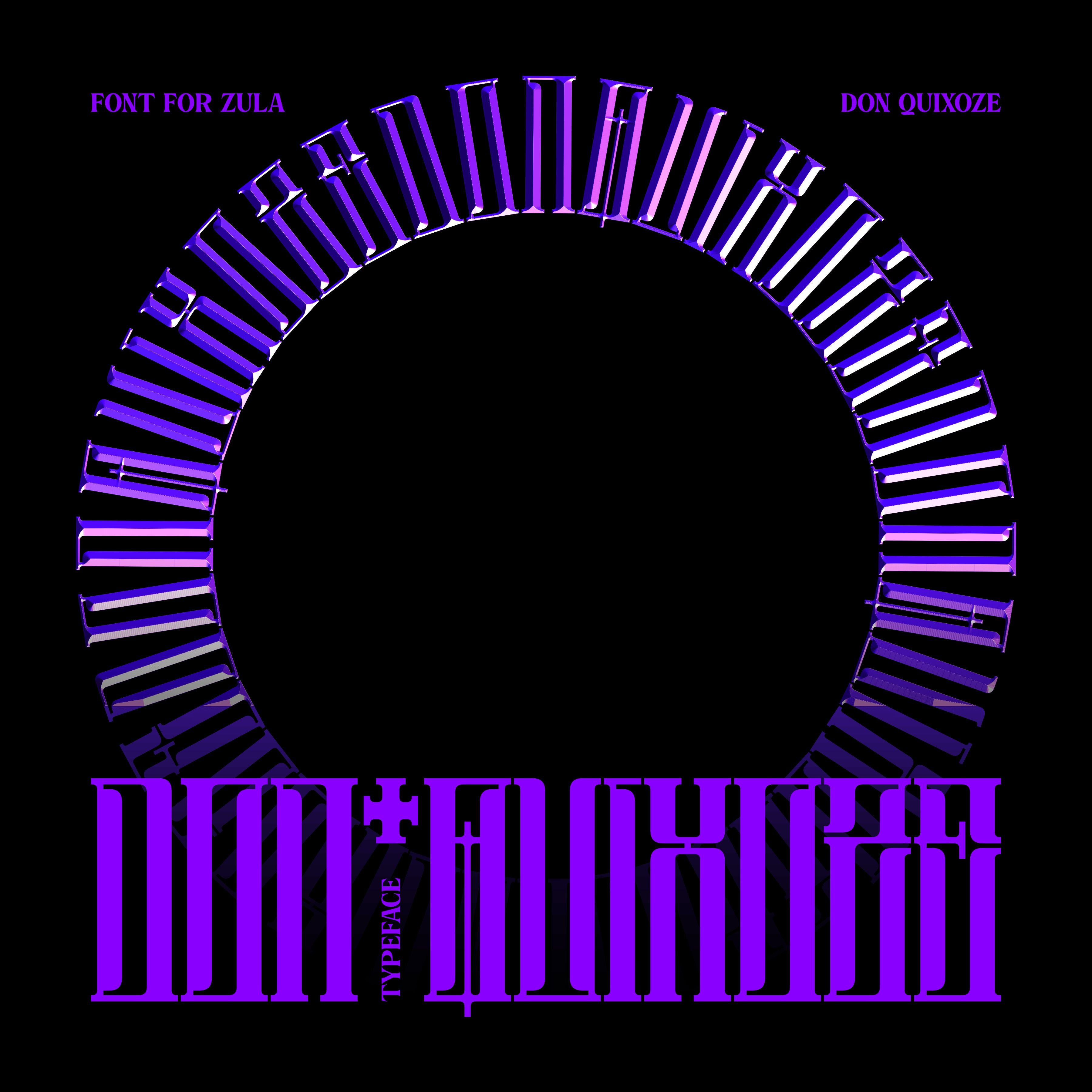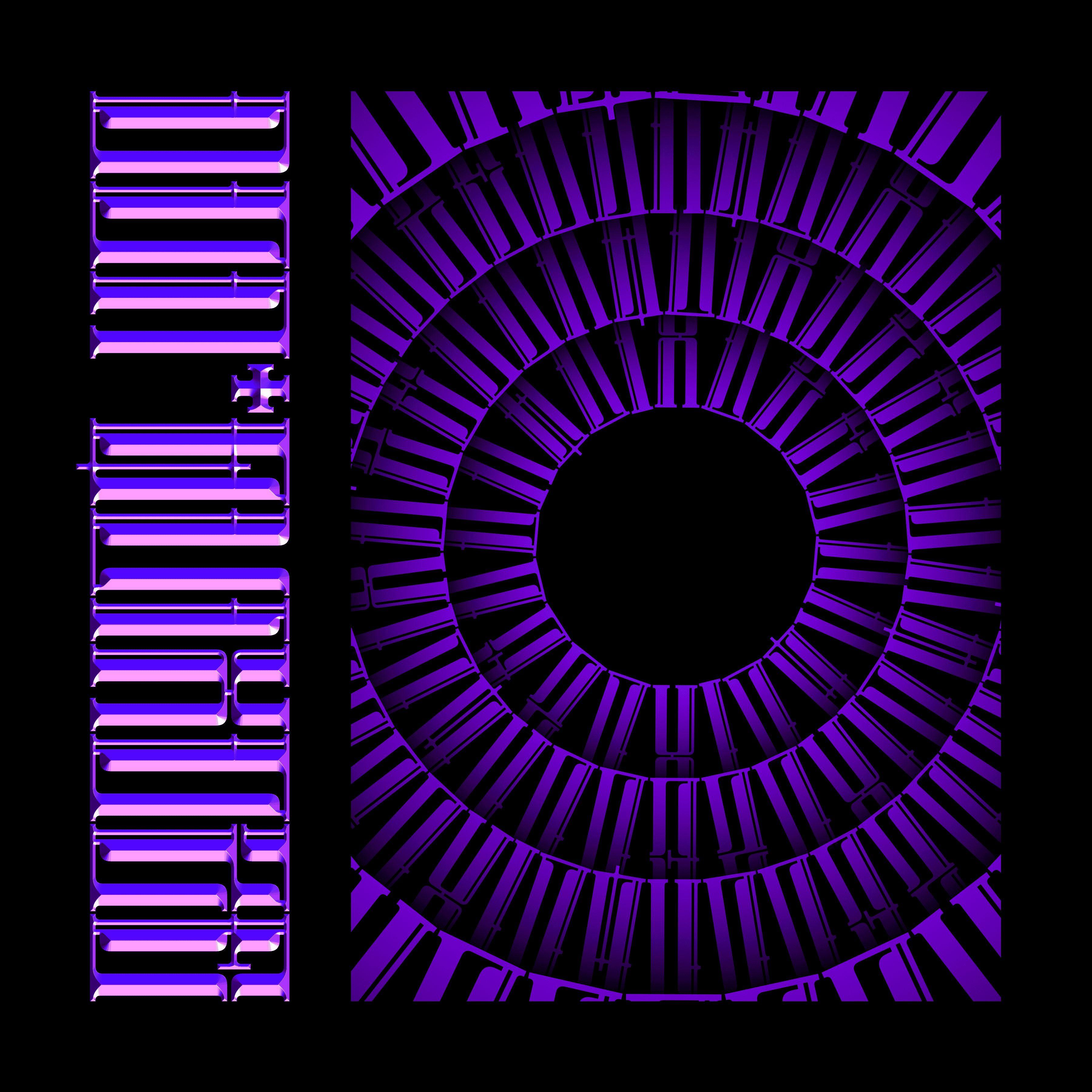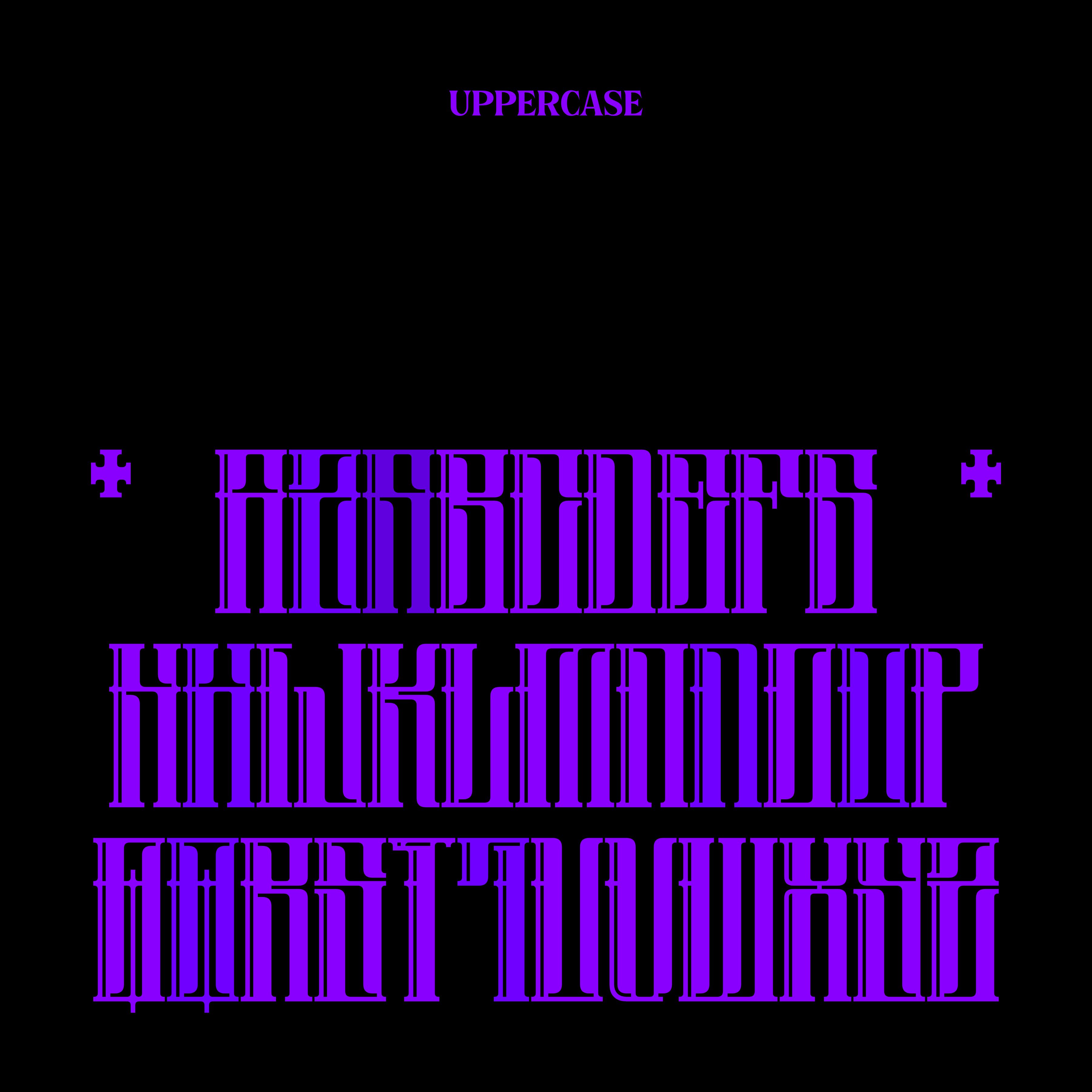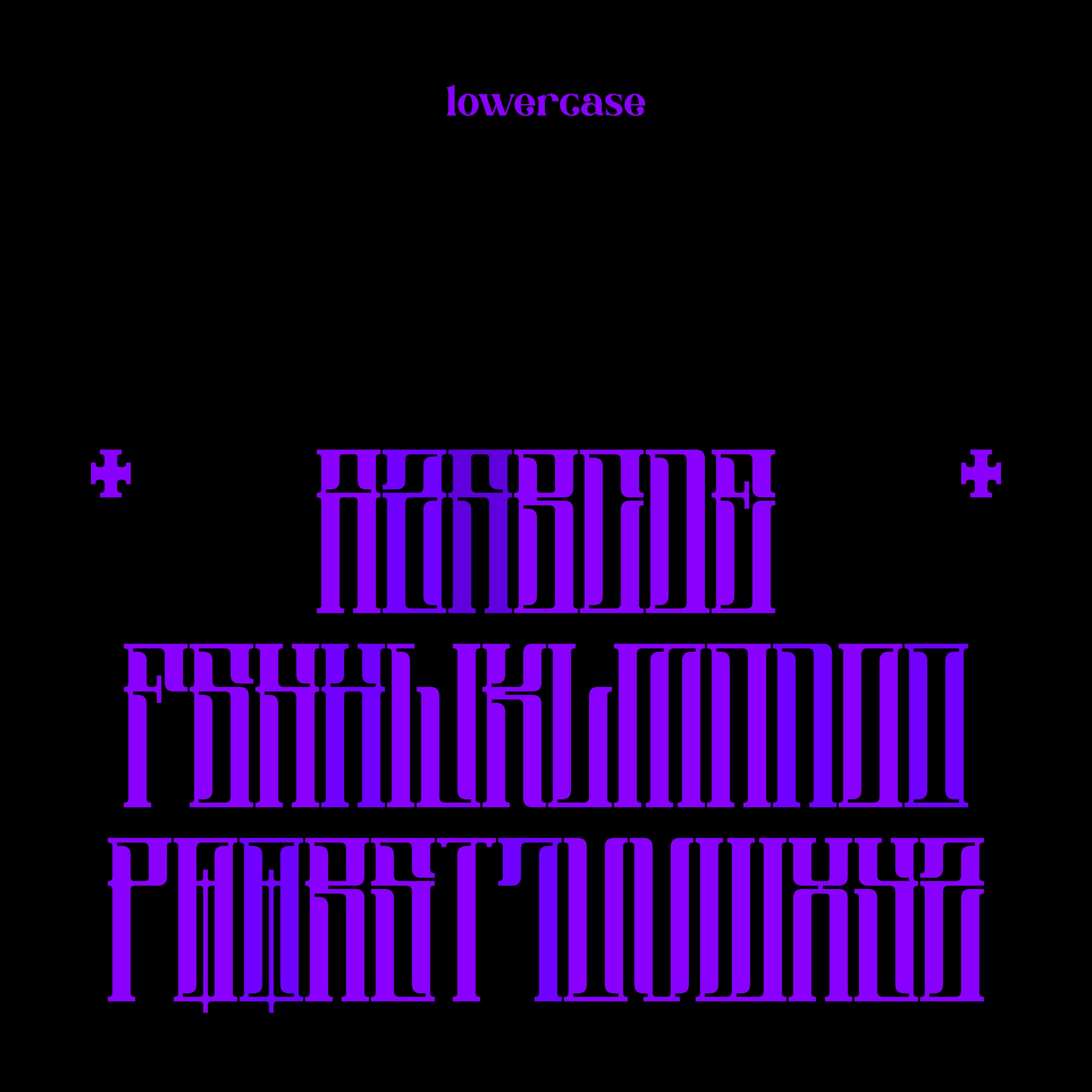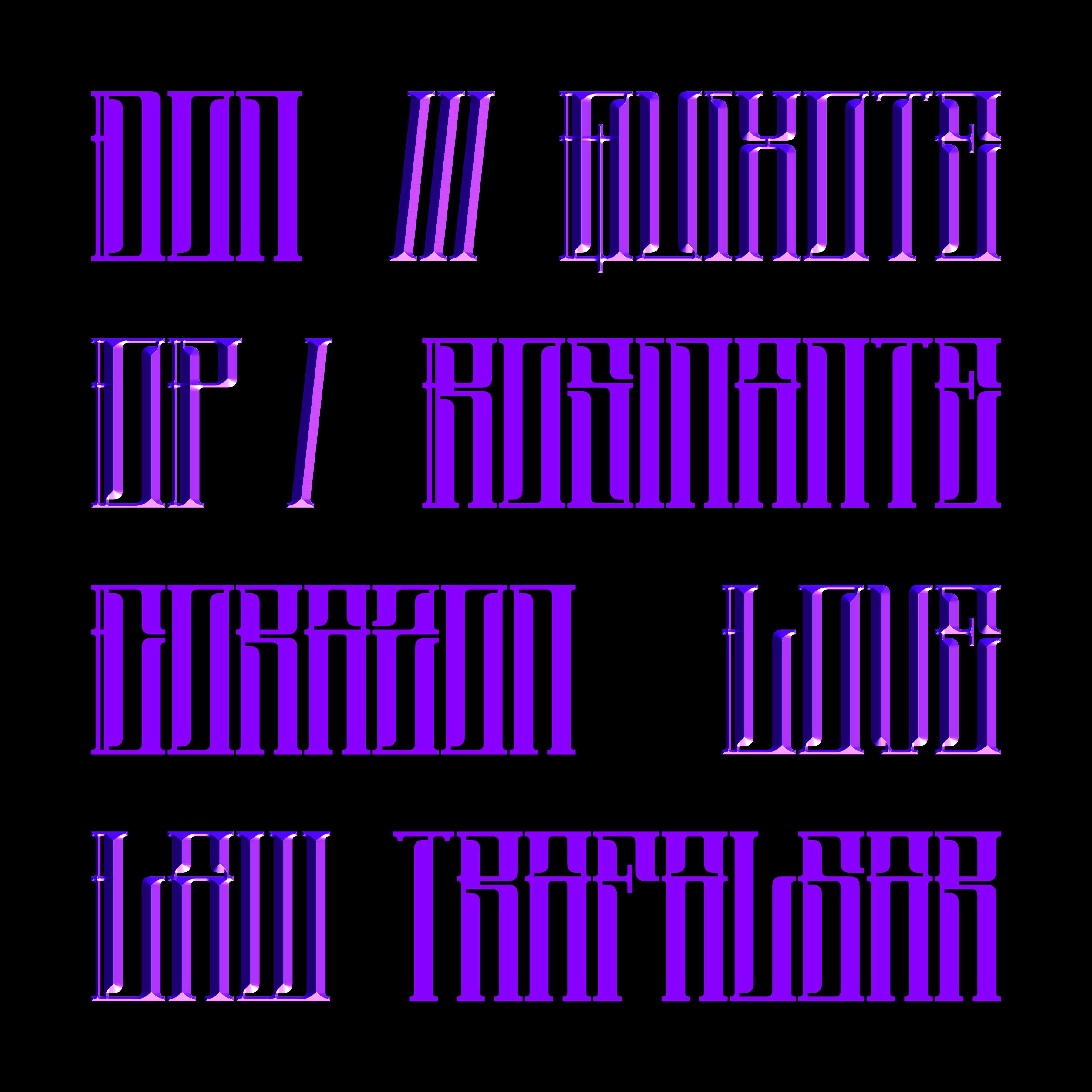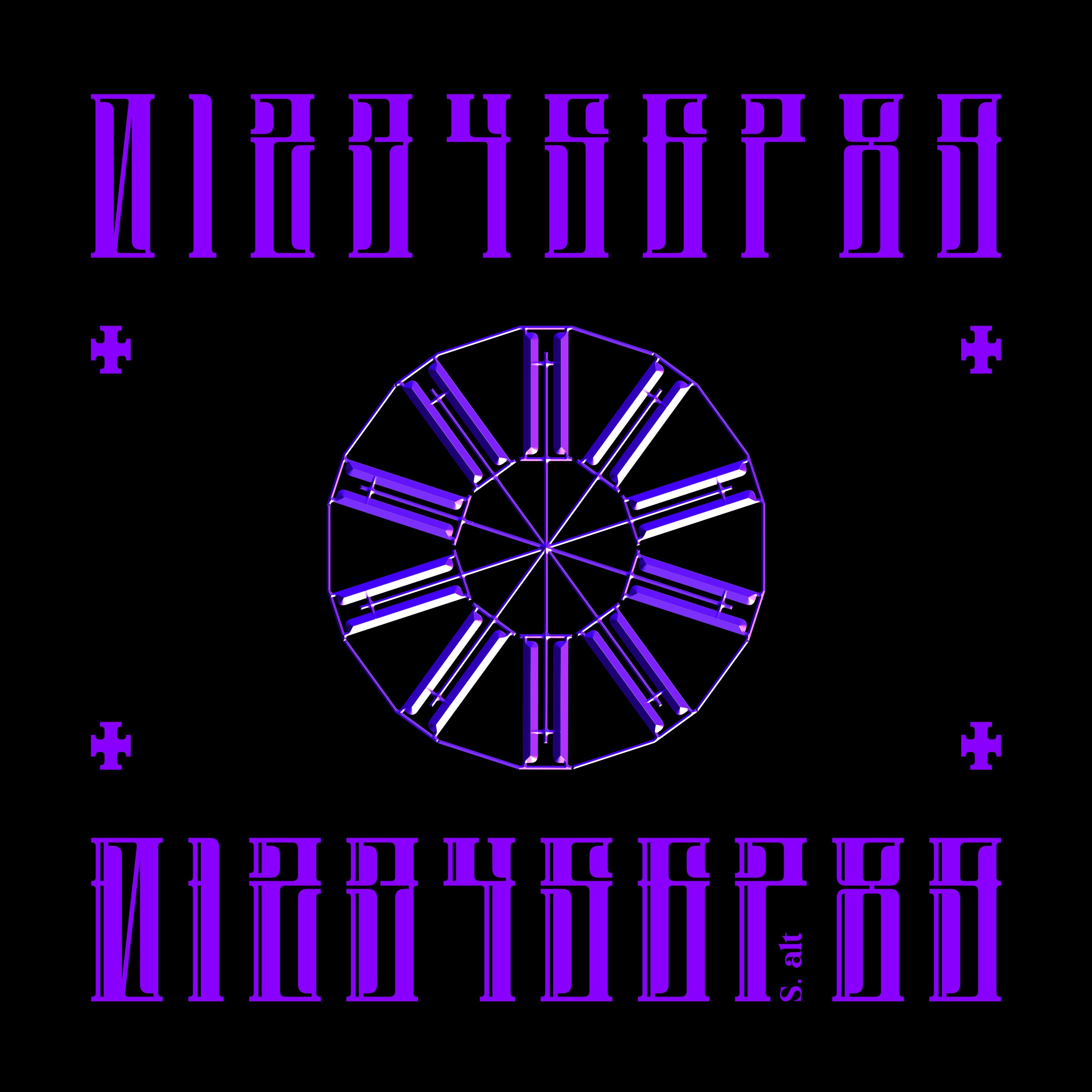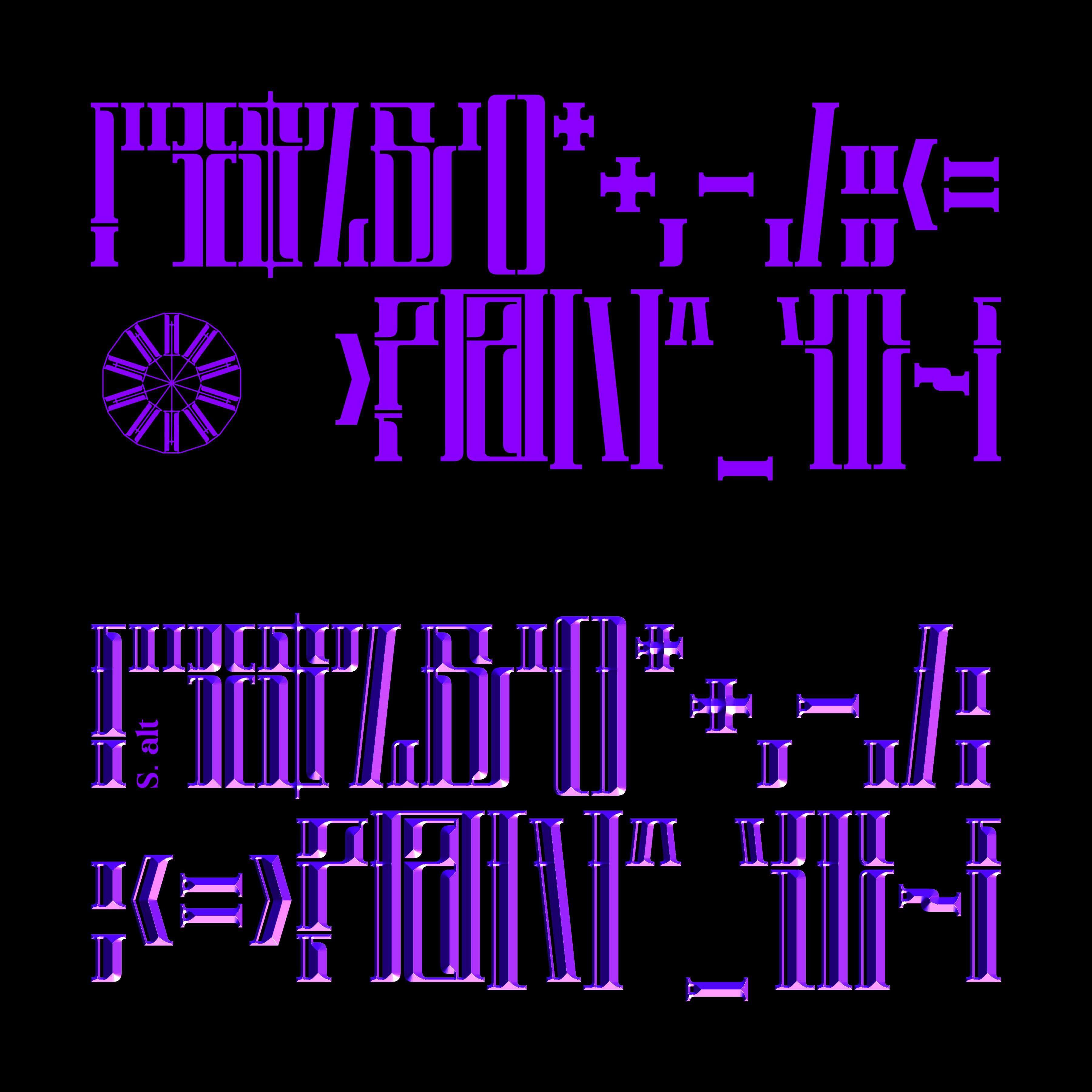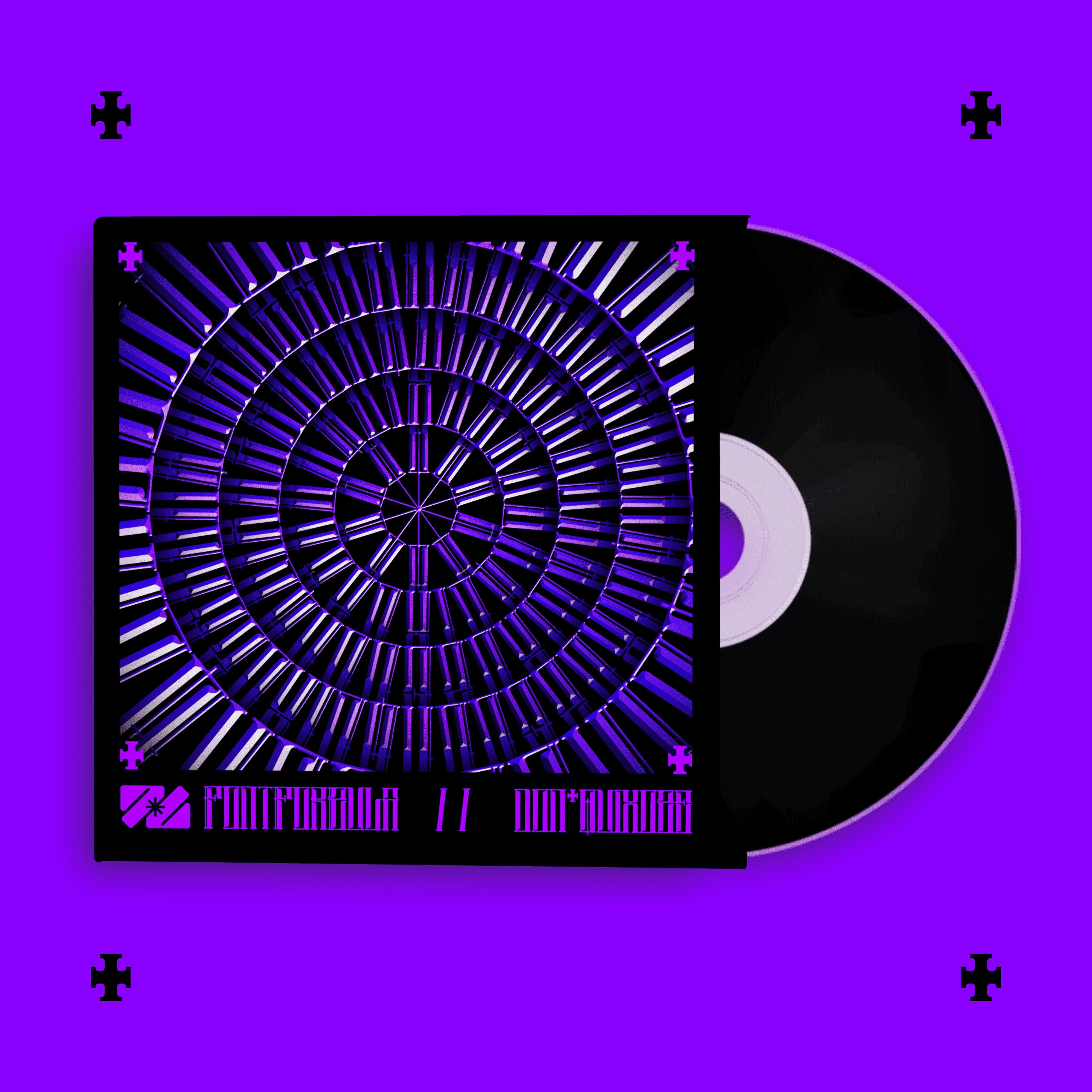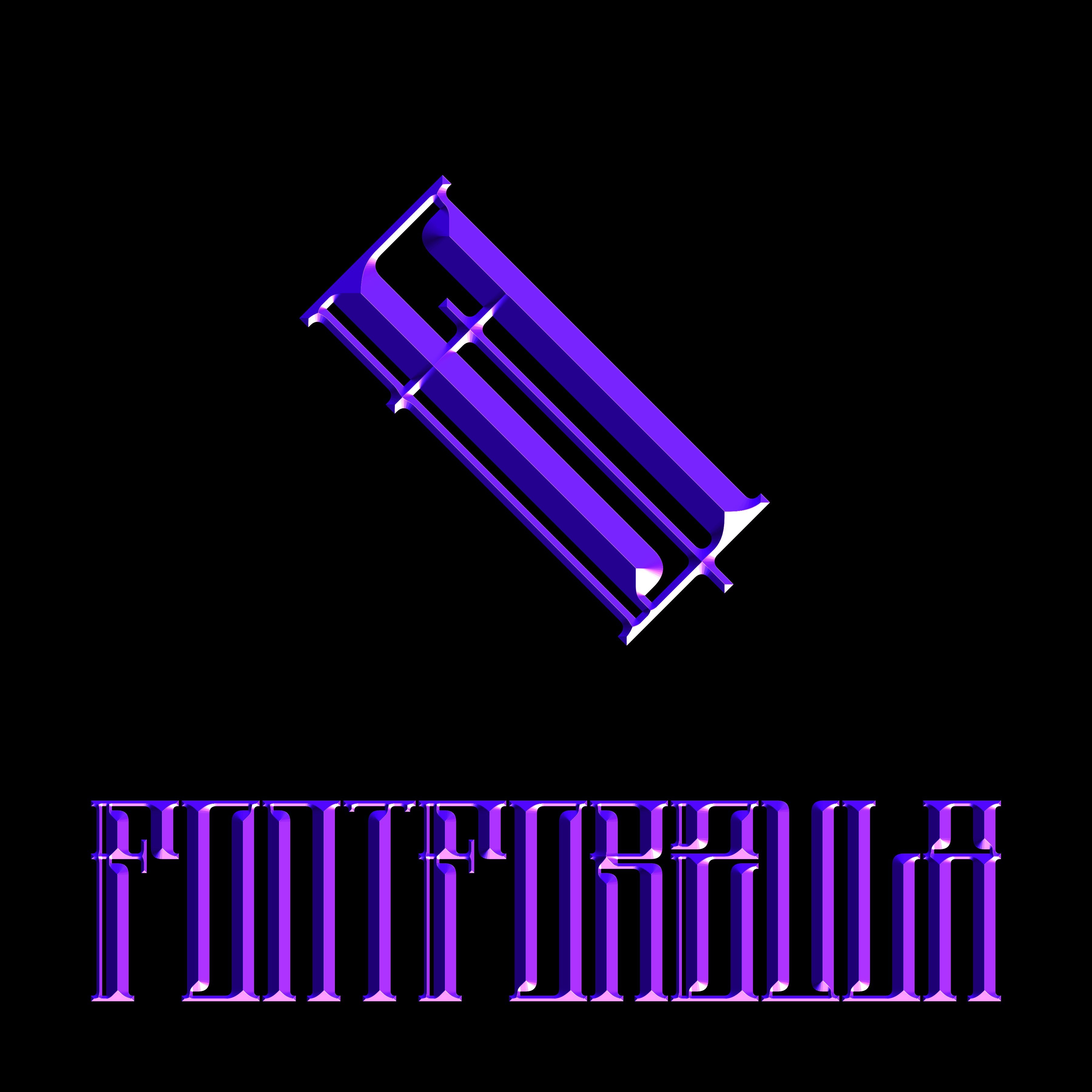
The DON QUIXOZE Typeface is a semi-gothic, unique font that offers two distinct styles. It includes OTF/TTF and WOFF formats, uppercase and lowercase letters with alternates, numerals with alternates, and punctuation with alternates.
Ideal for vintage-inspired graphic design and medieval-themed projects. Perfect for apparel design, posters, and album covers, ensuring a unique and captivating aesthetic that stands out.